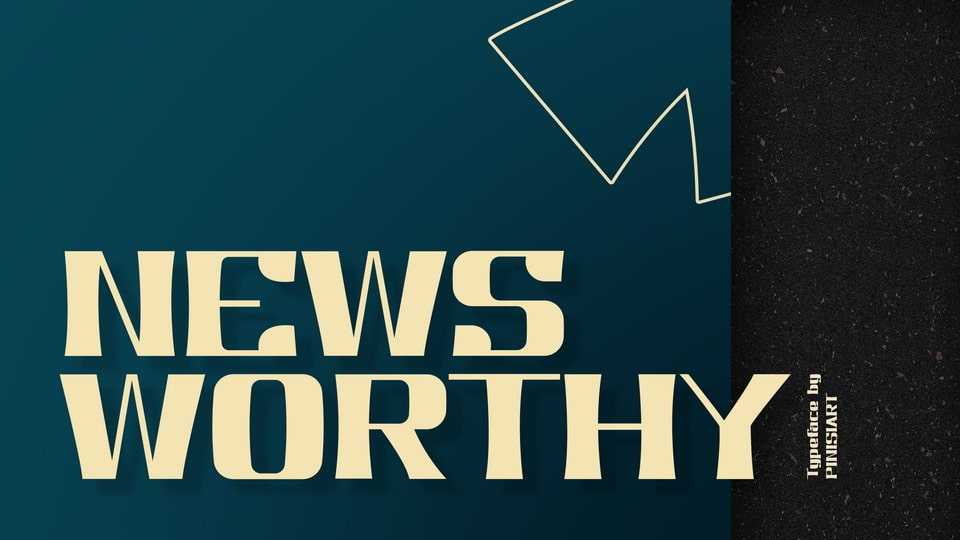
Download Newsworthy font, a classic display typeface. Just like its name, Newsworthy will make your writing hit the road for full-blown notification.